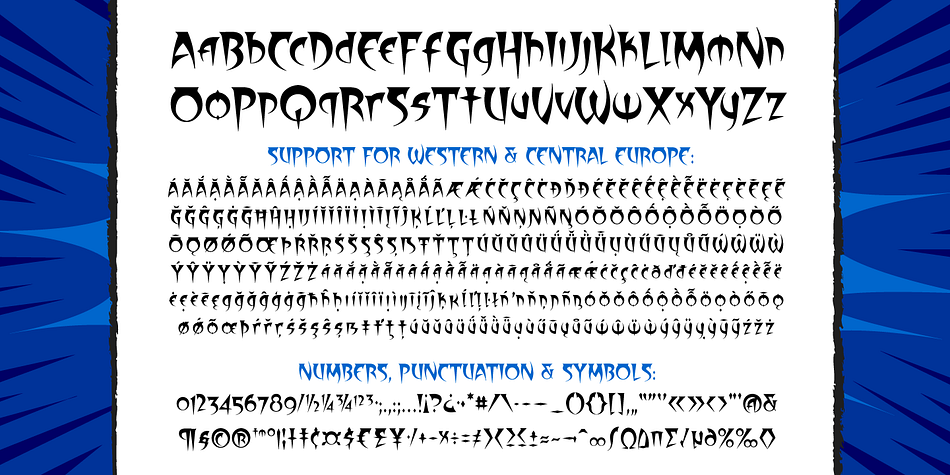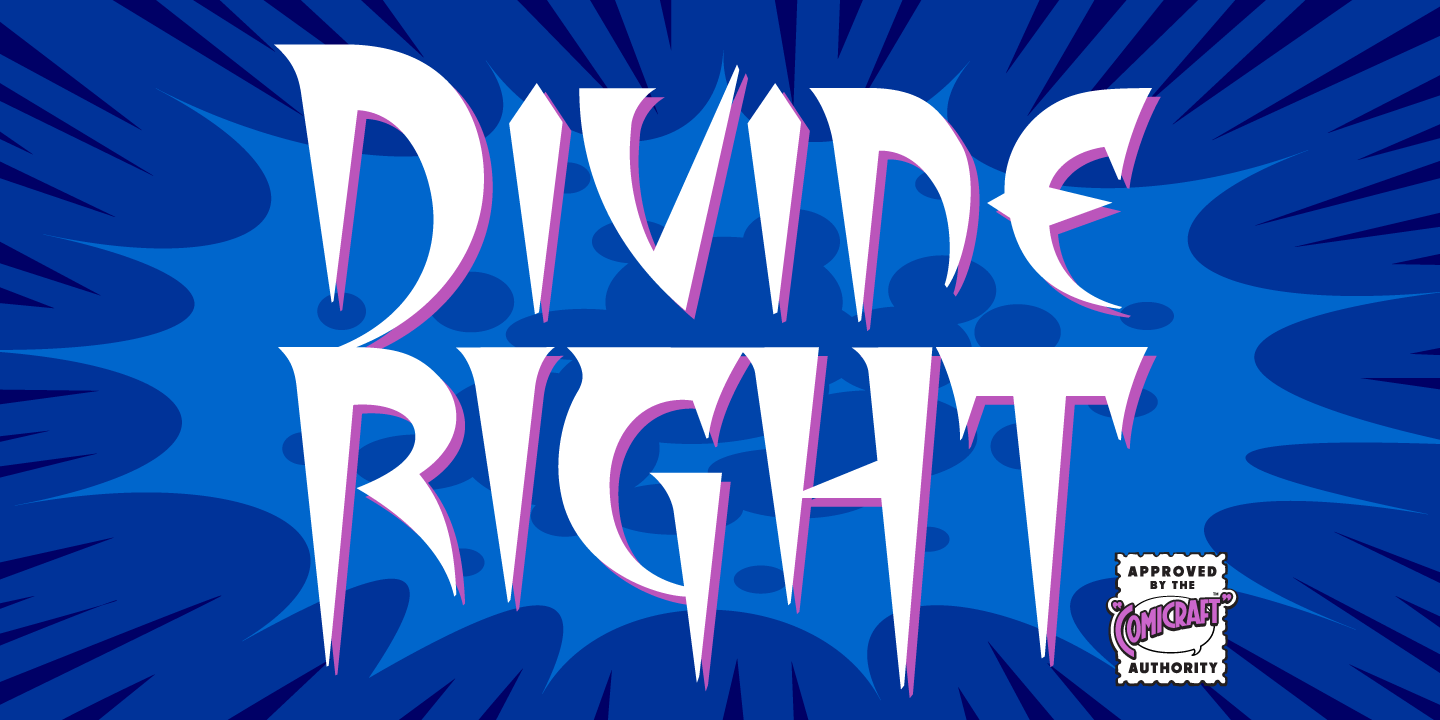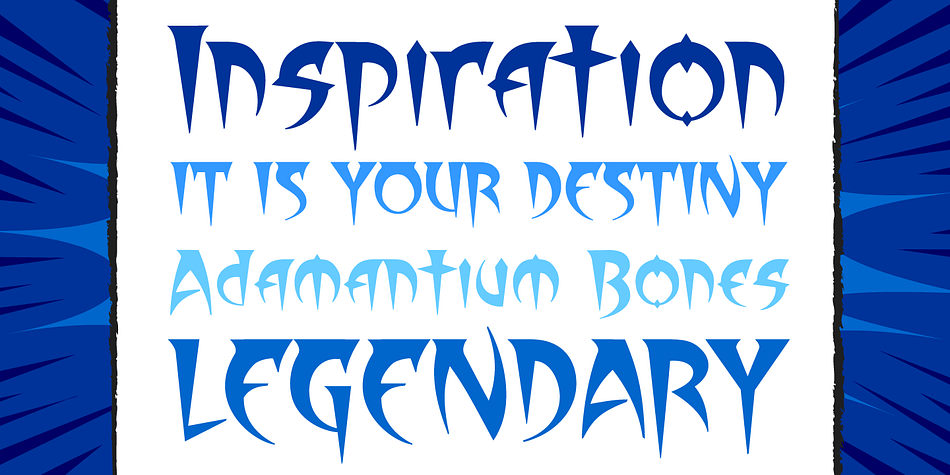
Designed by John Roshell, Divine Right is a novelty font published by Comicraft.
While the Adventures of Max Faraday continue in the pages of Wildstorm Comics’ DIVINE RIGHT, another chapter title font has begun on the web pages of the World’s Greatest Comic Book Fonts. Delicately crafted by Mister Fontastic himself, John JG Roshell claims this font was the product of Divine Inspiration. When told he’d been looking at the work of too many French Poster Artists, JG dismissed such allegations as Mucha do about nothing.